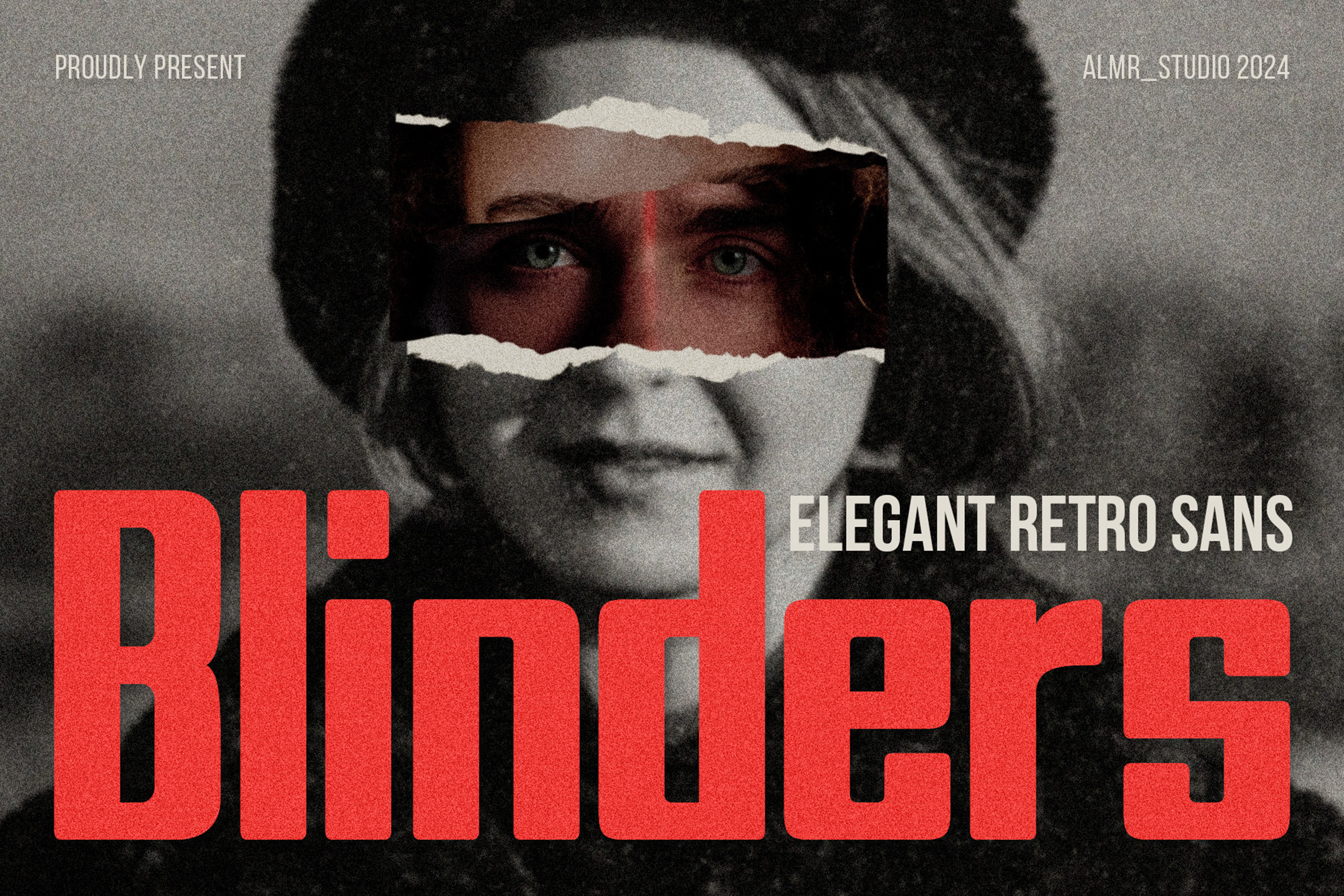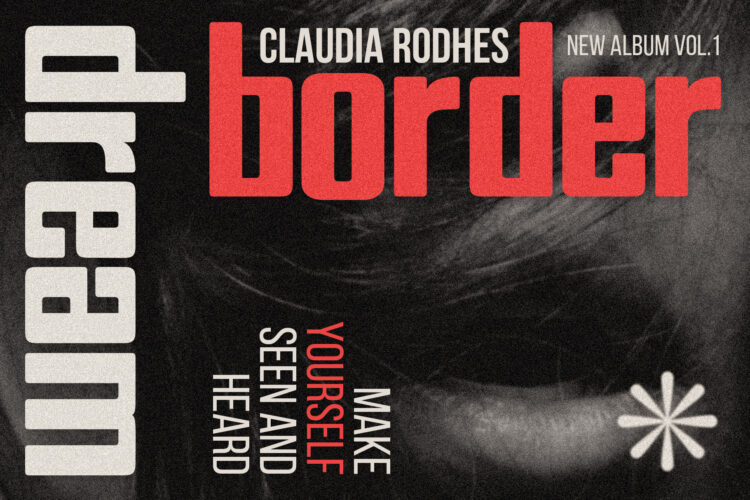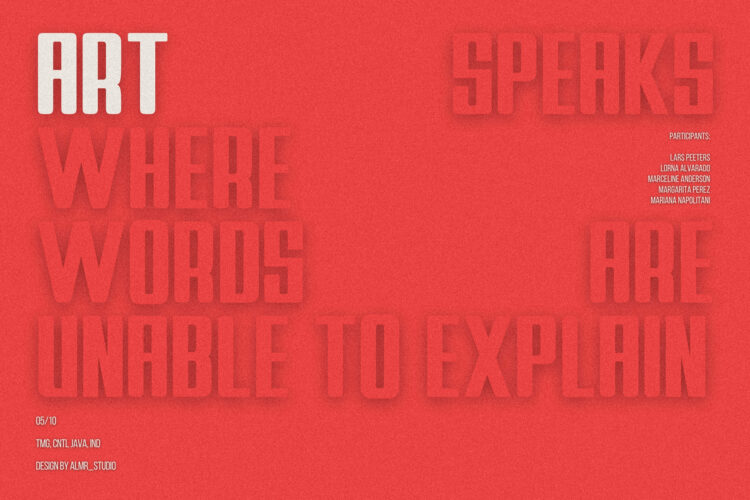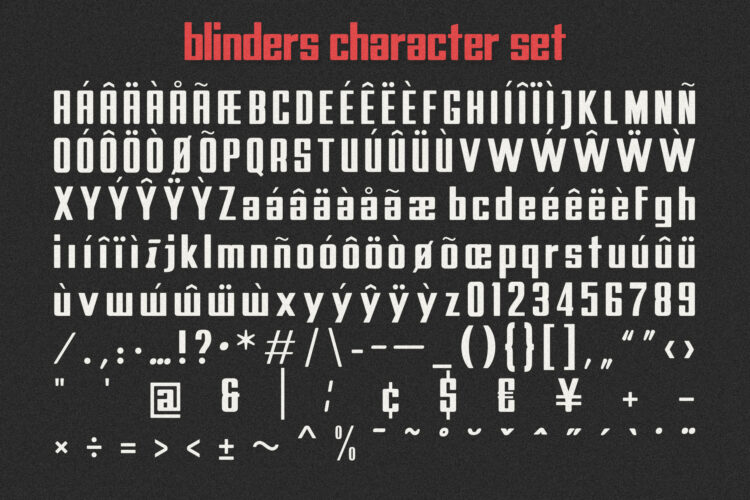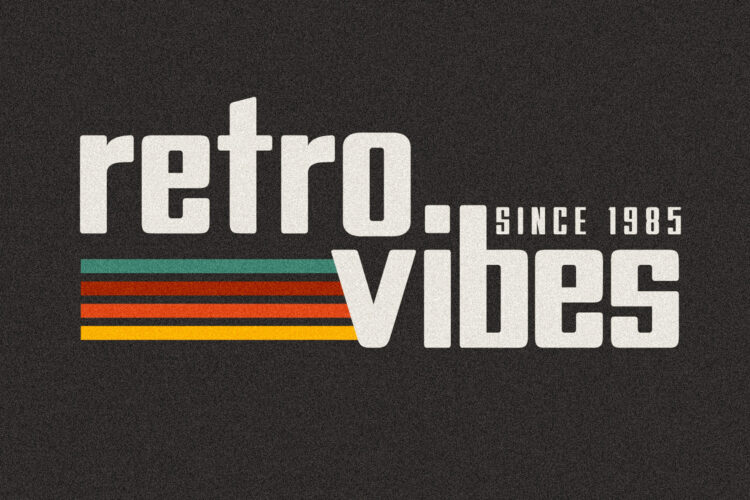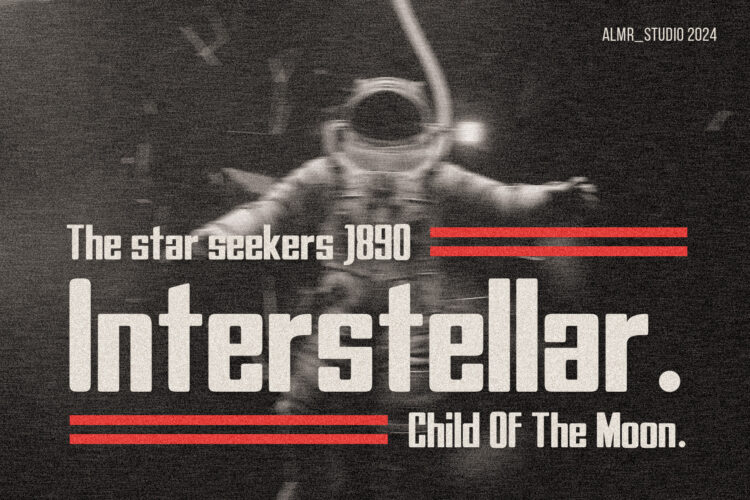
Introducing Blinders – elegant retro sans. Blinders is a retro and simple font, best used as a display for headings, logos, branding, magazines, product packaging and invitations.
Blinders – Elegant Retro Sans